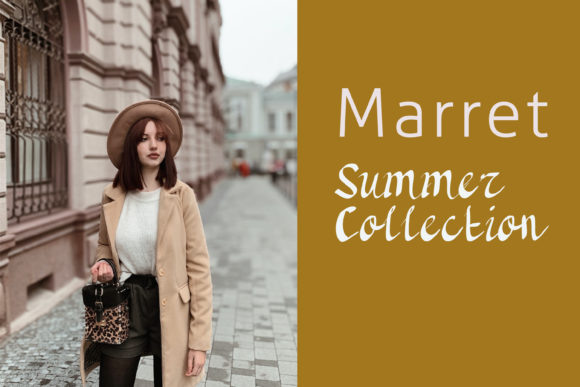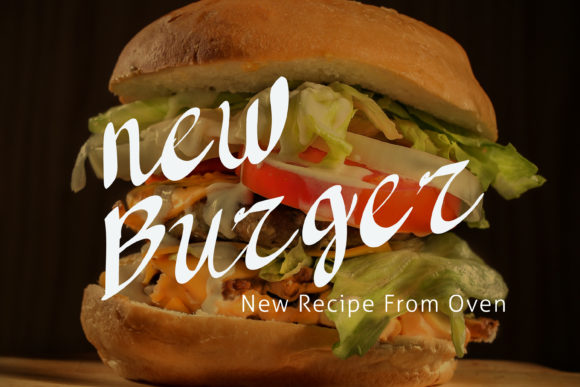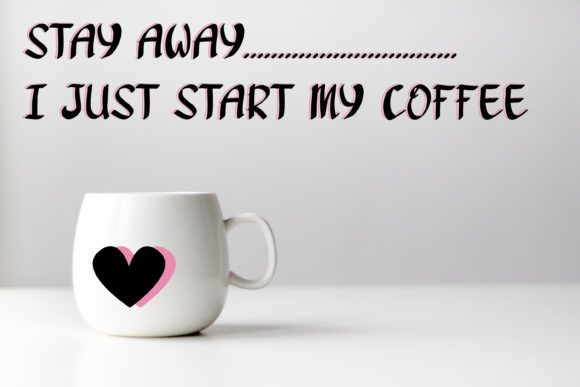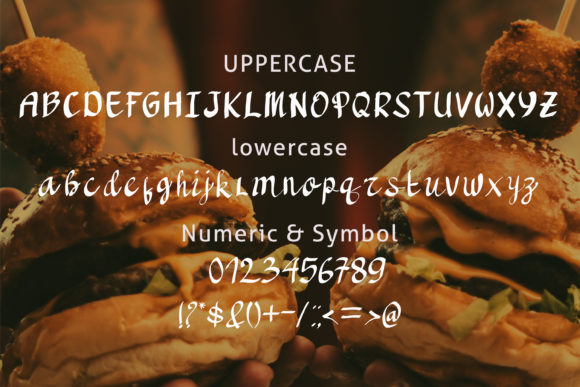
Erica Font: The Playful and Modern Script Font to Elevate Your Designs
Are you tired of using the same old fonts in your designs? Look no further than Erica Font, a playful and modern script font that’s sure to add a touch of personality to your projects. With its incredibly distinct and interesting style, Erica Font is the perfect choice for designers and crafters looking to make their designs come alive.
What is Erica Font?
Erica Font is a unique and stylish script font that’s designed to add a touch of whimsy to your designs. Its playful and modern style makes it perfect for a wide range of projects, from creative crafts to digital designs. Whether you’re working on a logo, a poster, or a social media graphic, Erica Font is sure to make your design stand out.
Key Features of Erica Font
So what makes Erica Font so special? Here are just a few of its key features:
- Playful and modern style: Erica Font has a fun and contemporary style that’s perfect for designers and crafters who want to add a touch of personality to their designs.
- Incredibly distinct and interesting: With its unique and stylish lettering, Erica Font is sure to grab attention and make your designs stand out.
- Easy to read: Despite its playful style, Erica Font is incredibly easy to read, making it perfect for use in a wide range of projects.
- Versatile: Erica Font can be used in a wide range of projects, from digital designs to creative crafts.
Why Use Erica Font?
So why should you choose Erica Font for your next project? Here are just a few reasons:
- Add personality to your designs: Erica Font is the perfect choice for designers and crafters who want to add a touch of personality to their designs.
- Stand out from the crowd: With its unique and stylish lettering, Erica Font is sure to make your designs stand out from the crowd.
- Easy to use: Erica Font is incredibly easy to use, making it perfect for designers and crafters of all skill levels.
- Confidently create: With Erica Font, you can confidently create beautiful and unique designs that you’ll love.
How to Use Erica Font
So how can you use Erica Font in your next project? Here are a few ideas:
- Logos and branding: Erica Font is perfect for use in logos and branding materials, such as business cards and letterheads.
- Posters and flyers: Add a touch of personality to your posters and flyers with Erica Font.
- Social media graphics: Erica Font is perfect for use in social media graphics, such as Facebook and Twitter headers.
- Creative crafts: Erica Font can also be used in creative crafts, such as scrapbooking and card making.
Here are a few tips and tricks for getting the most out of Erica Font:
- Experiment with different colors: Erica Font looks great in a wide range of colors, so don’t be afraid to experiment and find the perfect color for your design.
- Use it with other fonts: Erica Font pairs perfectly with other fonts, so try using it with a bold font for a striking contrast.
- Play with different sizes: Erica Font looks great in a wide range of sizes, from large headings to smaller body text.
In conclusion, Erica Font is a playful and modern script font that’s perfect for designers and crafters looking to add a touch of personality to their designs. With its incredibly distinct and interesting style, Erica Font is sure to make each of your designs come alive. So why not give it a try and see the amazing results for yourself?